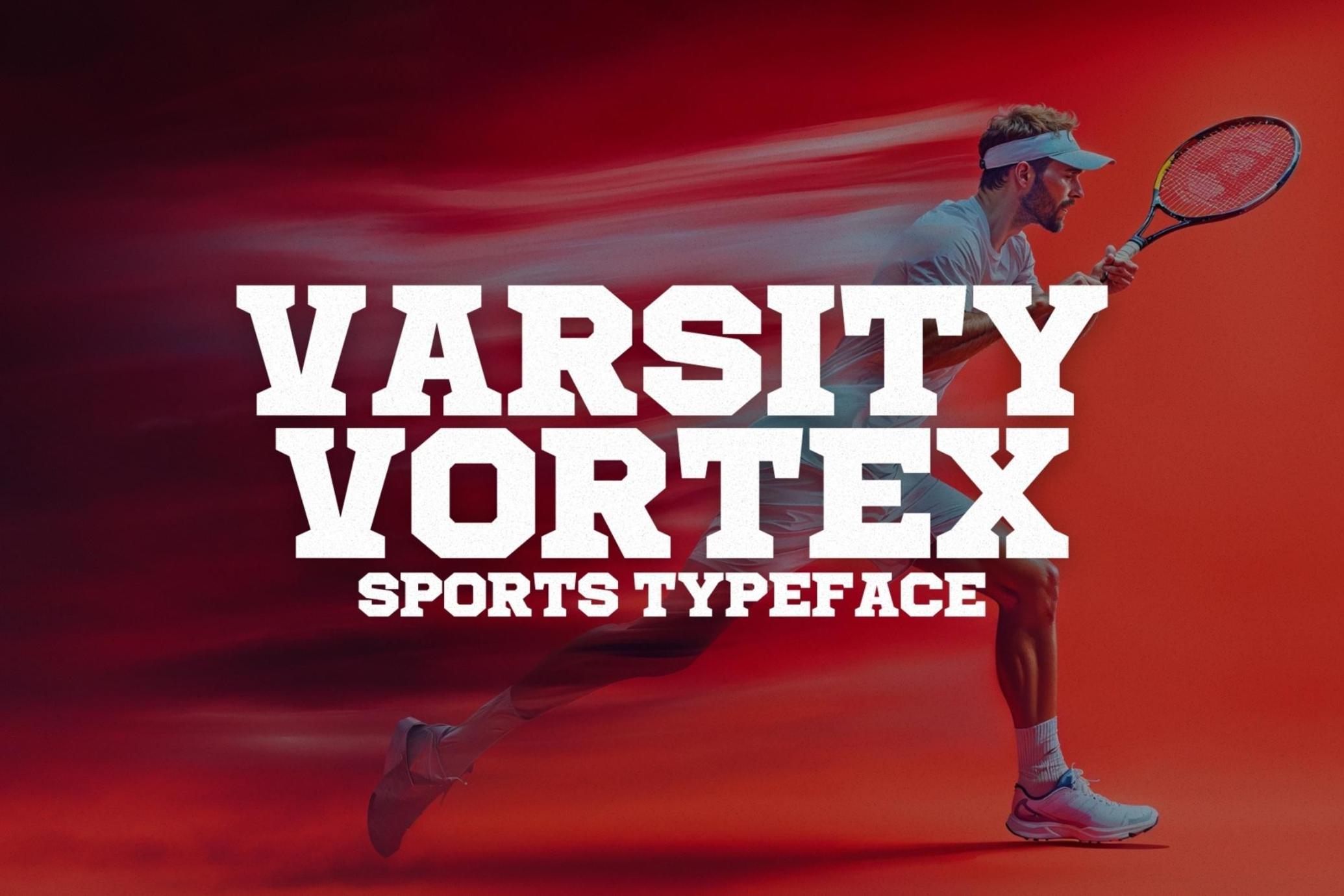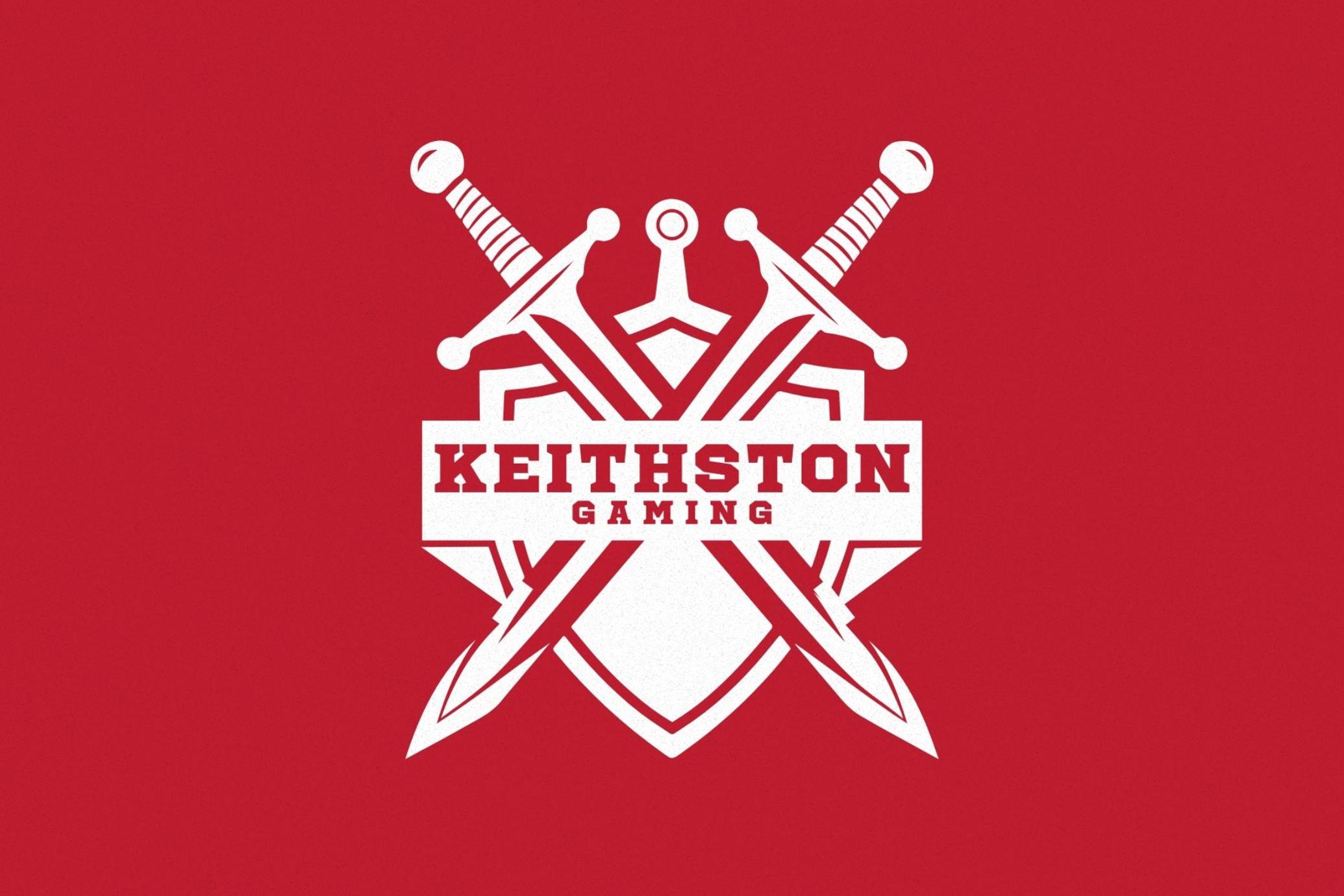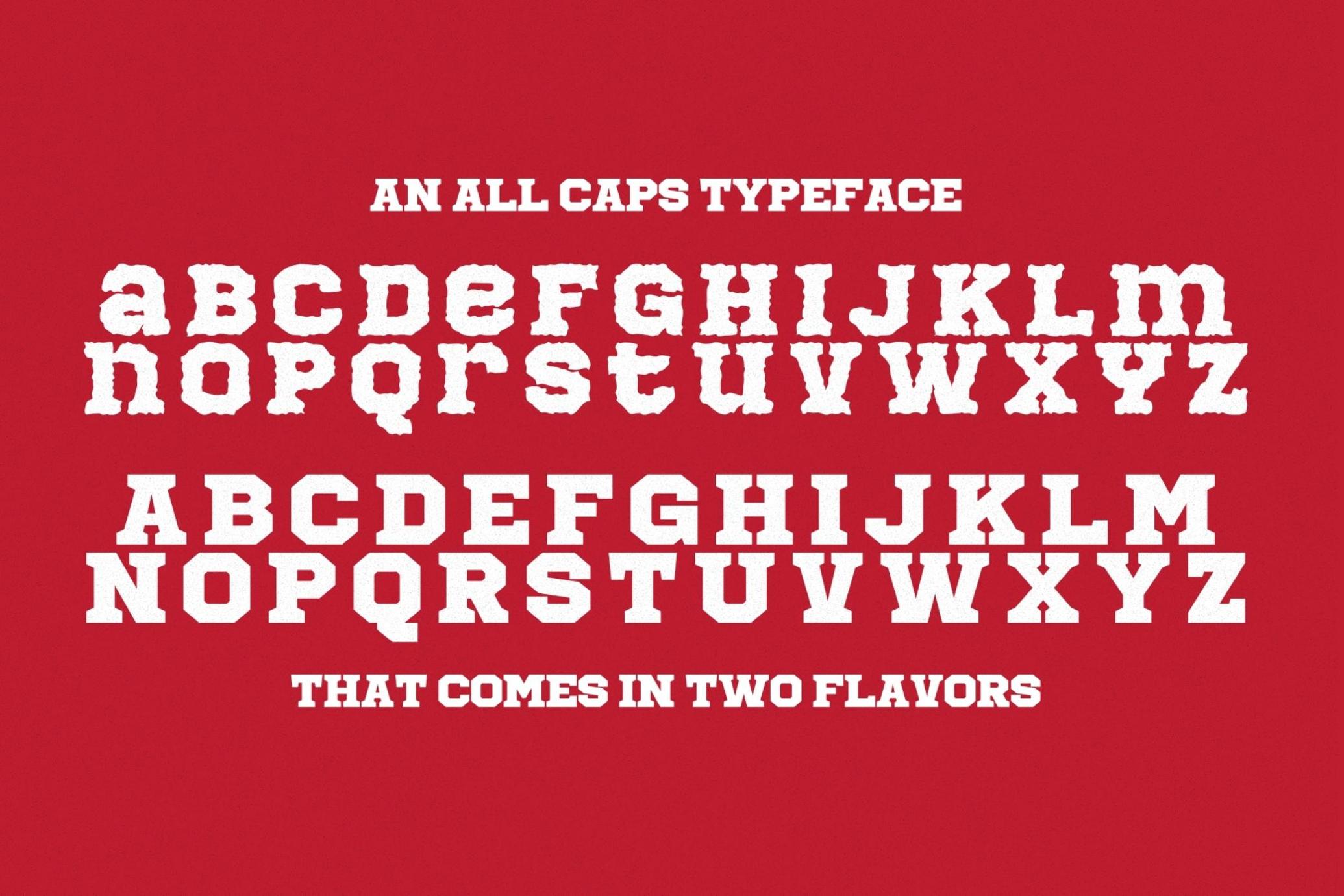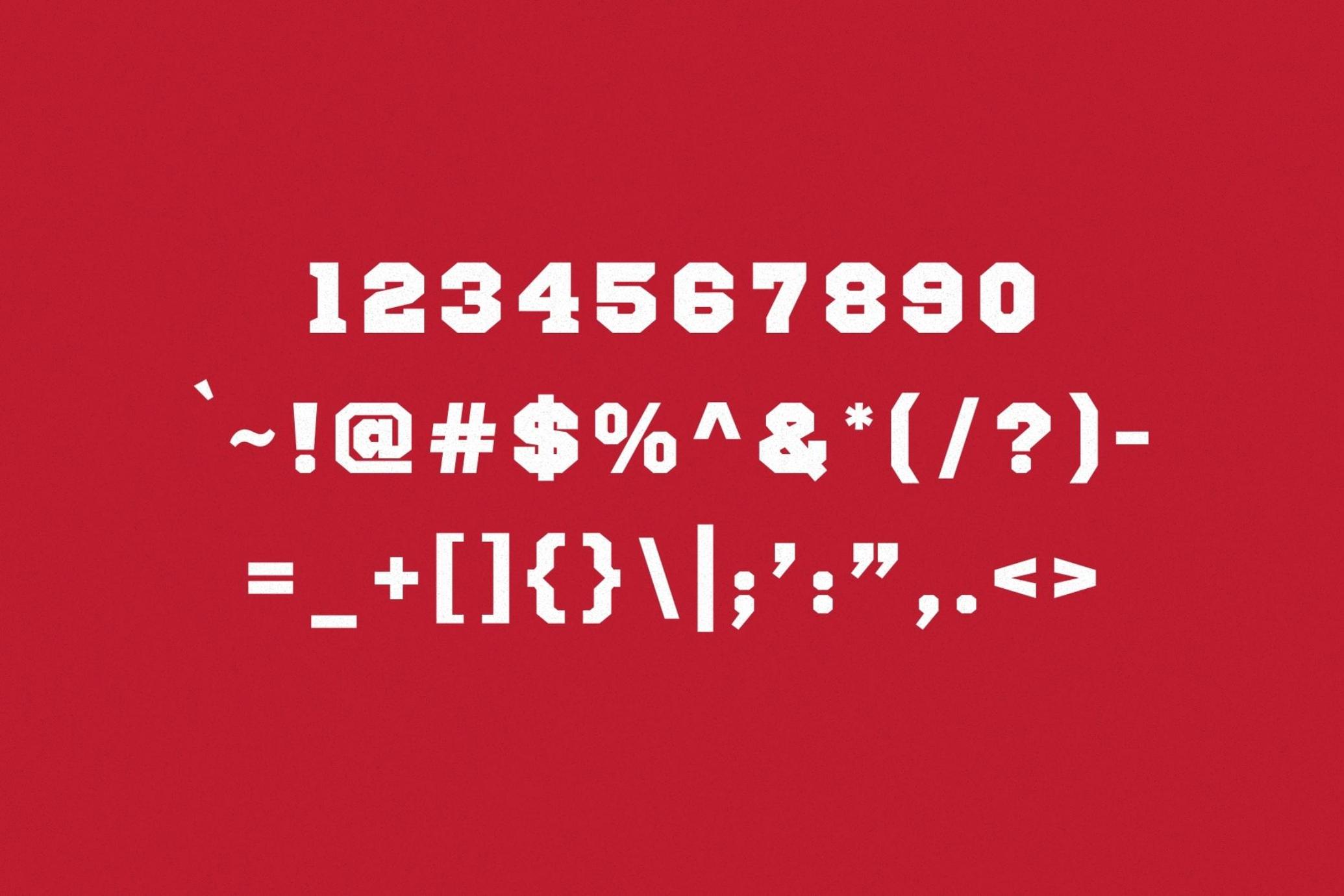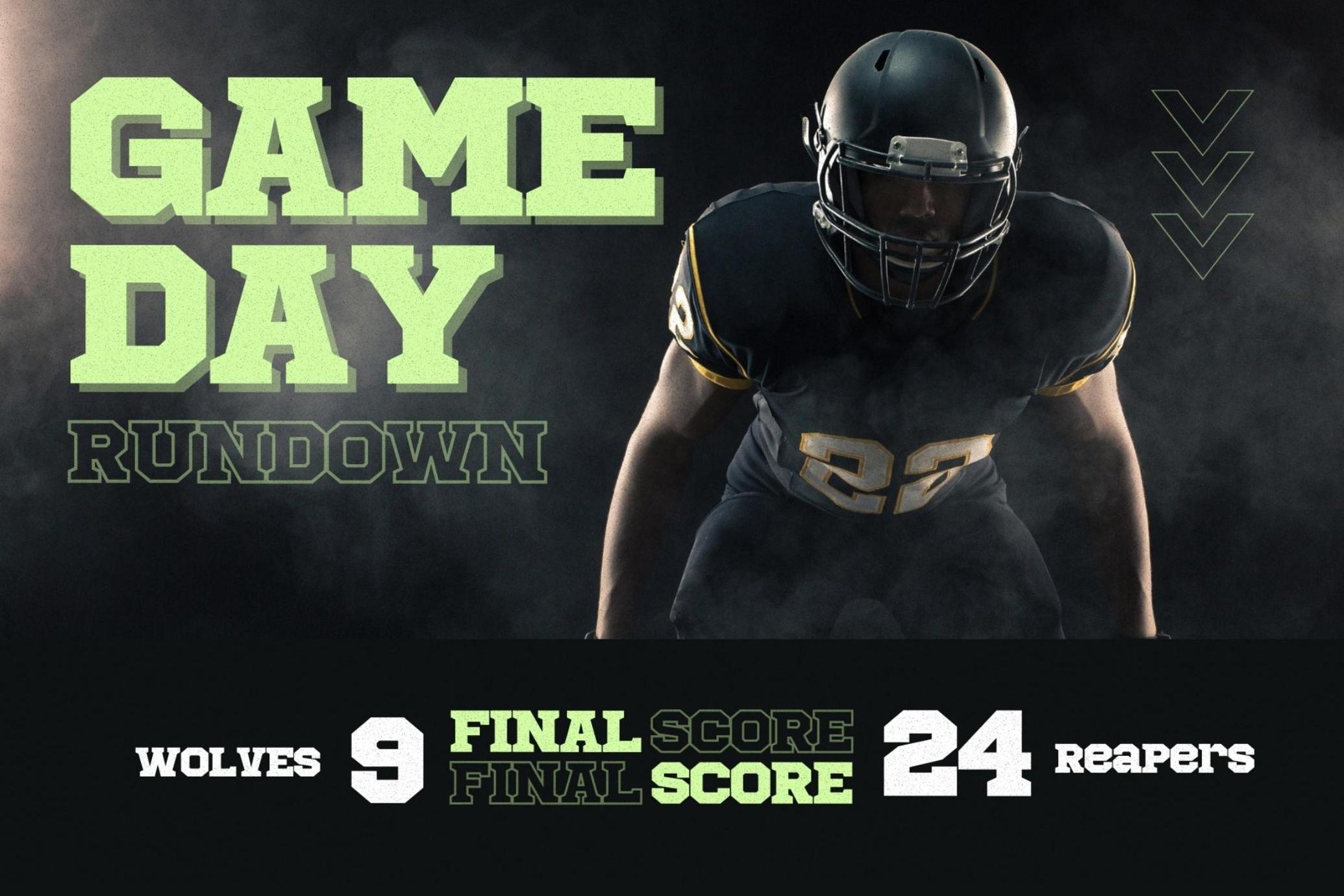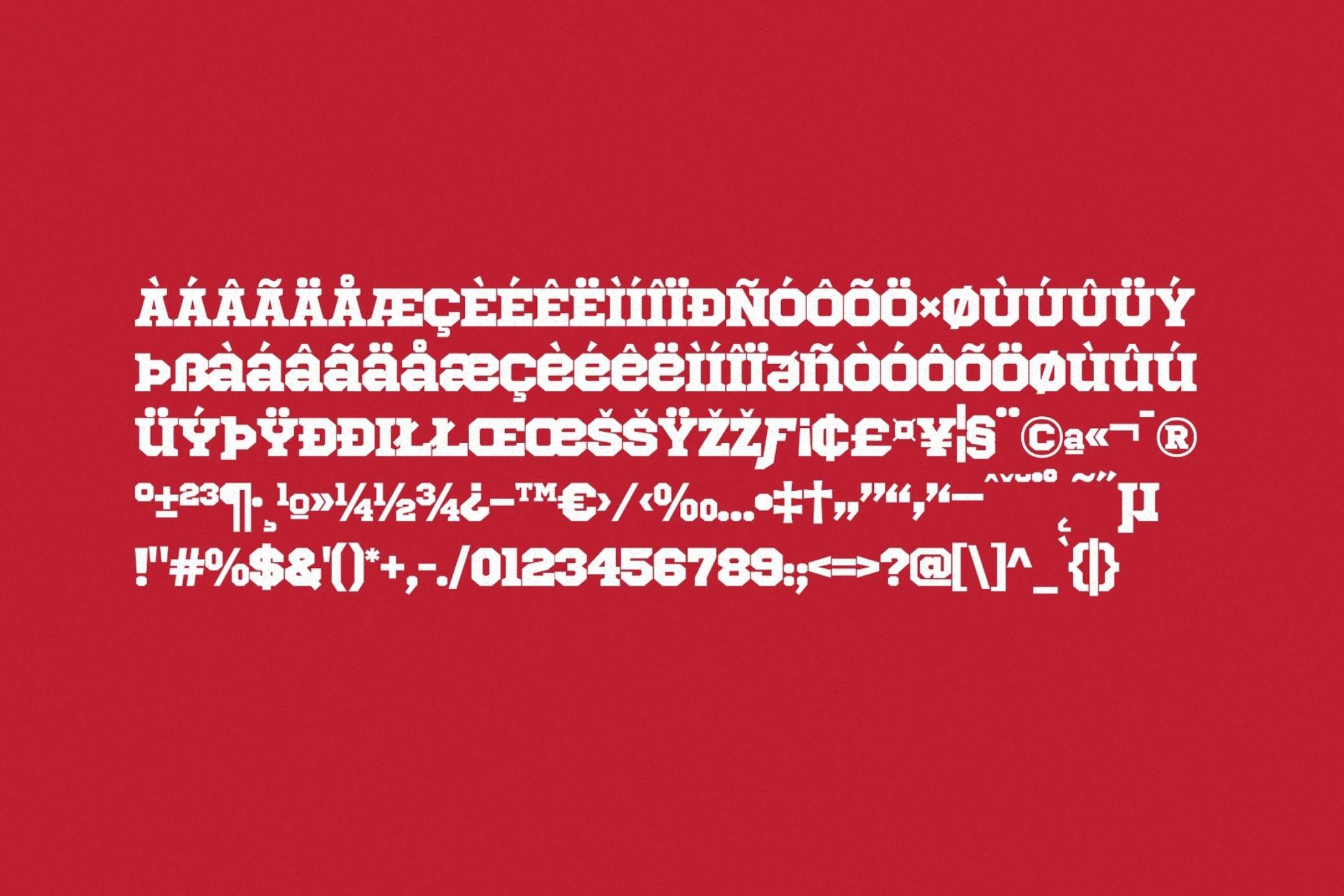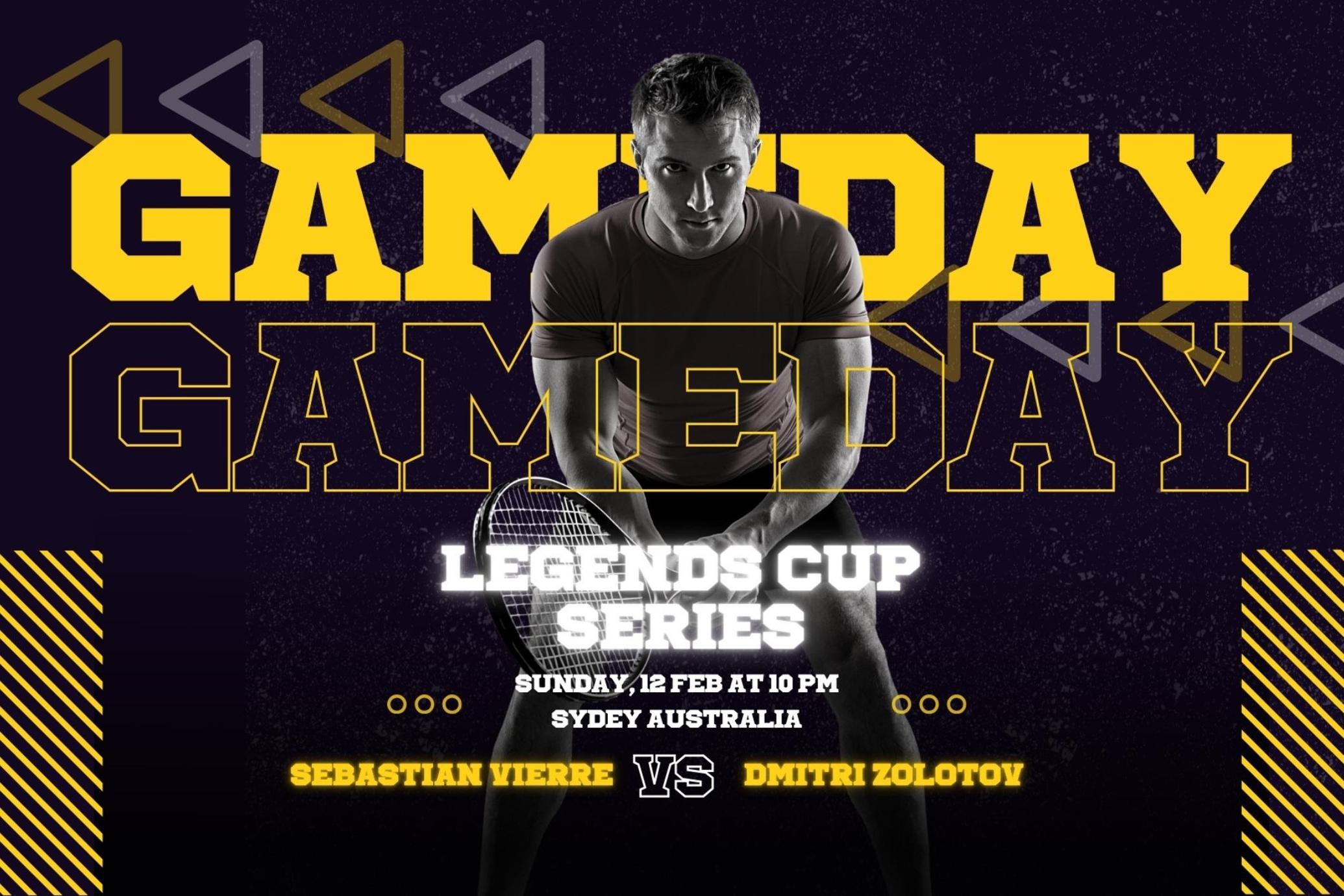
Varsity Vortex – Sports Typeface
Unleash the full force of athletic energy with Varsity Vortex, a bold and commanding sports typeface built for champions. Designed for impact, this powerhouse font exudes strength, determination, and team spirit—perfect for any serious sports brand, club, or event.
With two dynamic styles:
- Regular for a clean, professional look
- Grunge for a raw, handcrafted edge
- Varsity Vortex delivers versatility for banners, flyers, uniforms, branding, and beyond.
- Whether you’re promoting the big game, designing powerful social media graphics, or crafting high-energy marketing materials, this font is your MVP for visual dominance.
Why Varsity Vortex?
- Strong, masculine, and high-impact design
- Perfect for sports banners, flyers, and branding
- Ideal for jerseys, team gear, and athletic merchandise
- Comes in Regular & Grunge styles for maximum versatility
- Supports multiple languages for global teams and brands